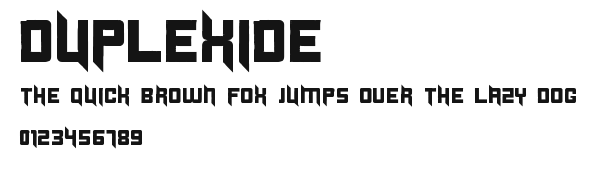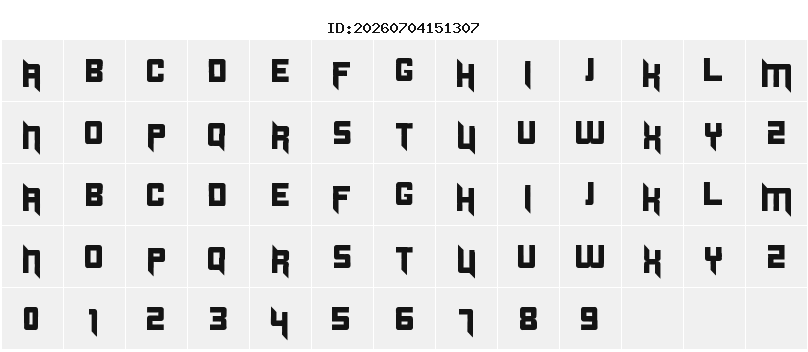
Duplexide Preview
• Font Name: Duplexide
About Duplexide.ttf
Duplexide.ttf is a modern, elegant sans-serif font designed for ultimate readability and visual harmony. Perfect for branding, headlines, web design, and print materials.